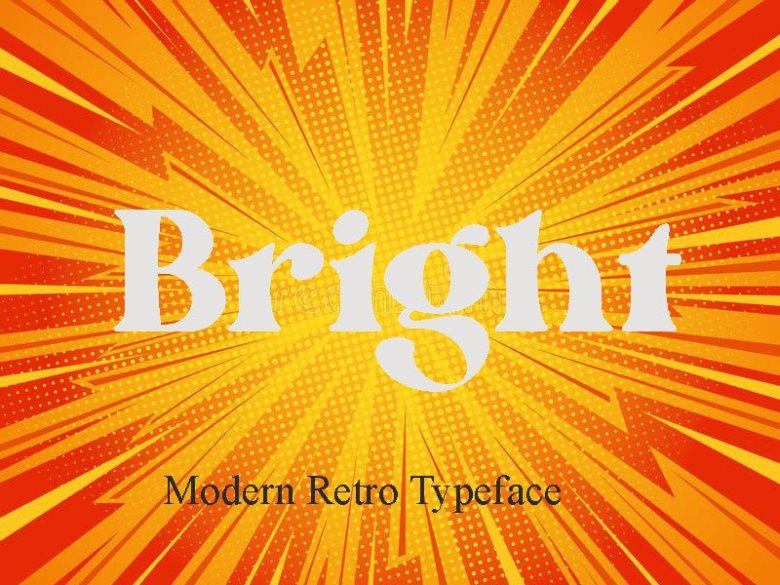
Bright Font
Bright Serif Font, designed by Dharmas Studio is a high-fashion typeface that delivers a bold sophisticated punch to any design. It has both modern and retro look – clear, modern and fun. Helps to create layout design in 60s or 70s design projects.
This font have more than 50 unique alternate and ligature that to give your logo,business card and another project to a unique vintage look. It has Italic version too so what a perfect vintage font!
Bright Modern Retro Typeface